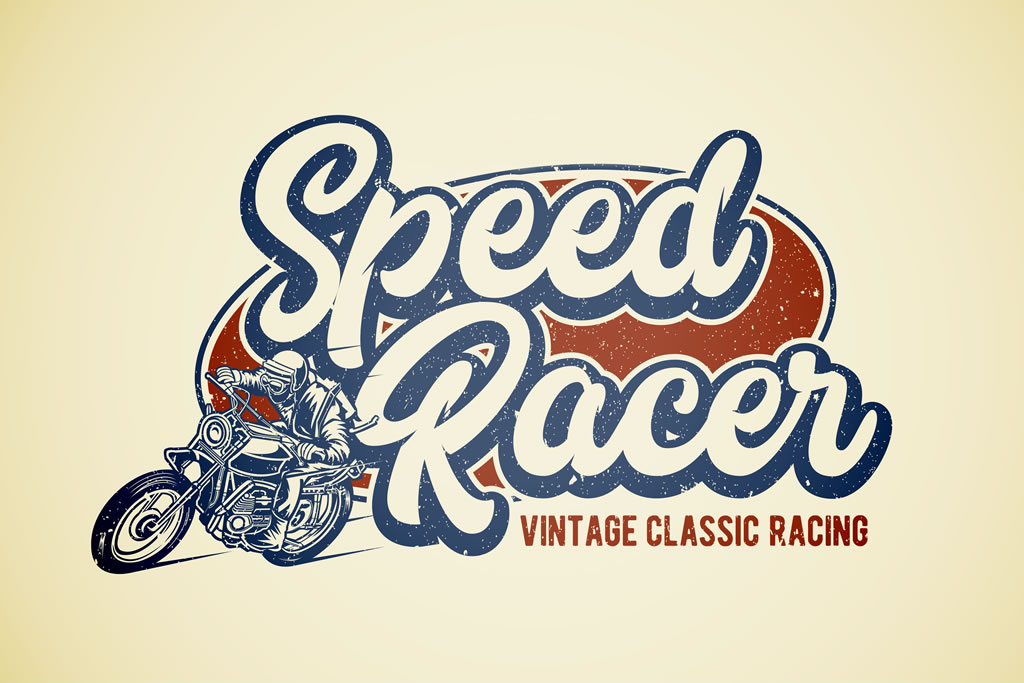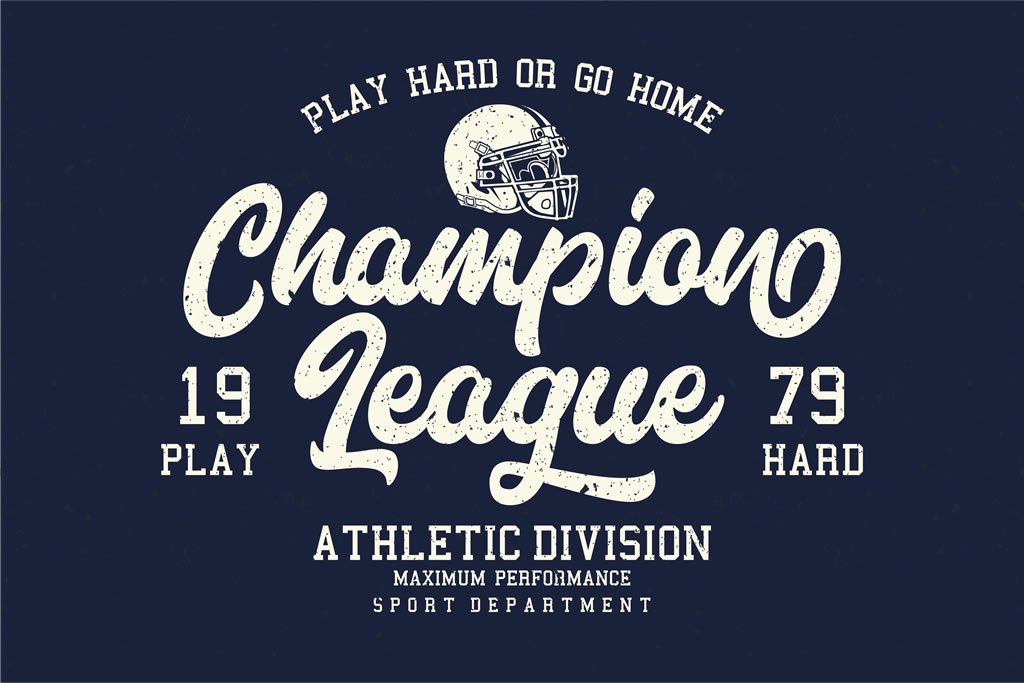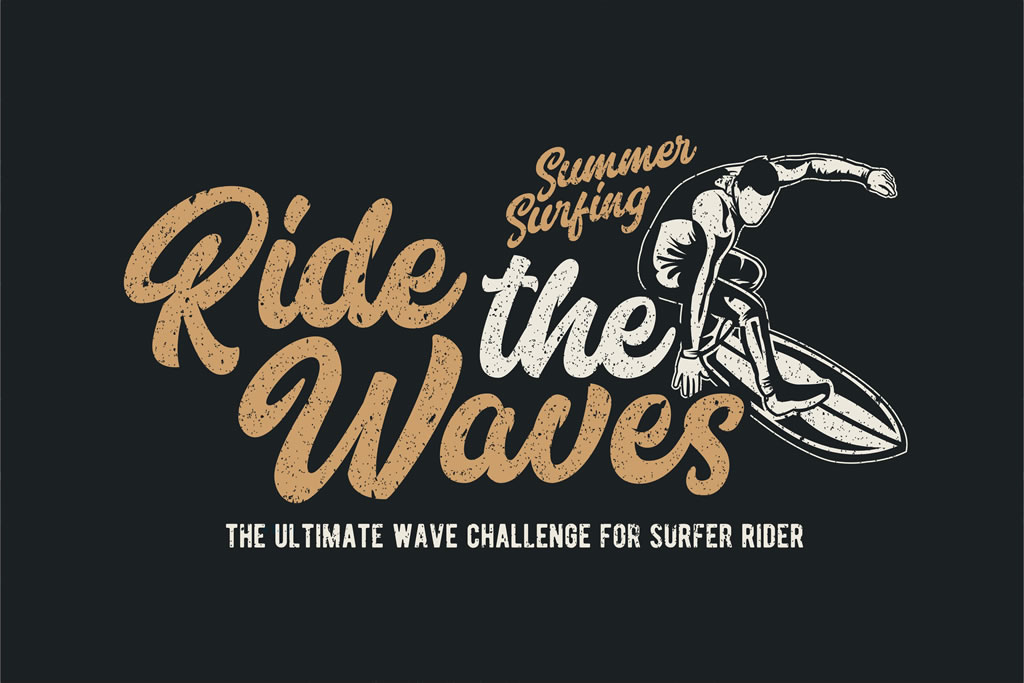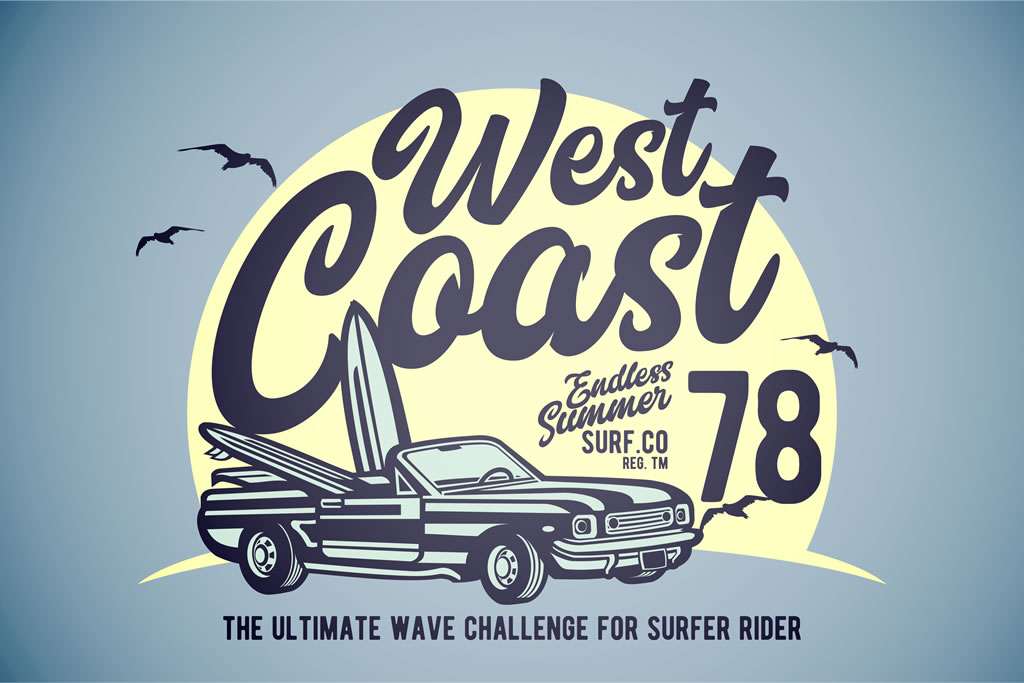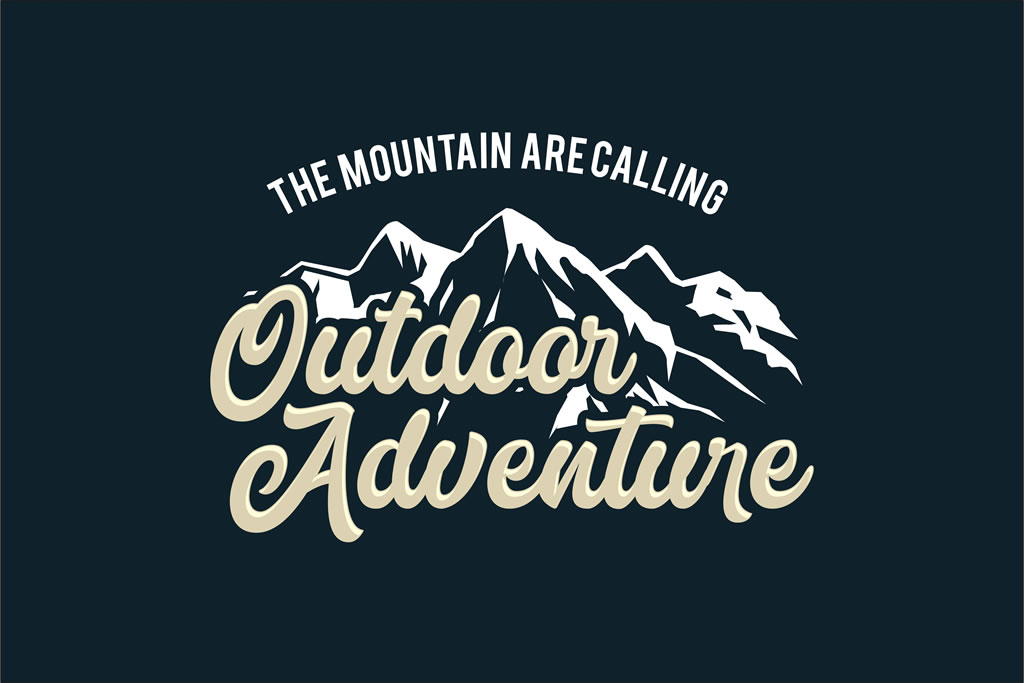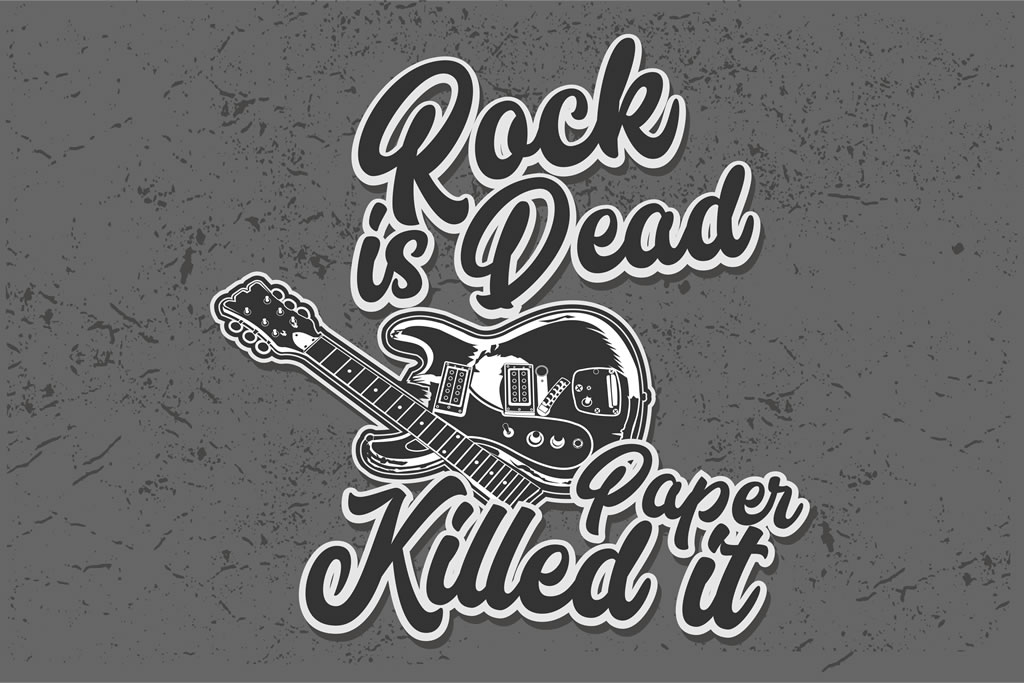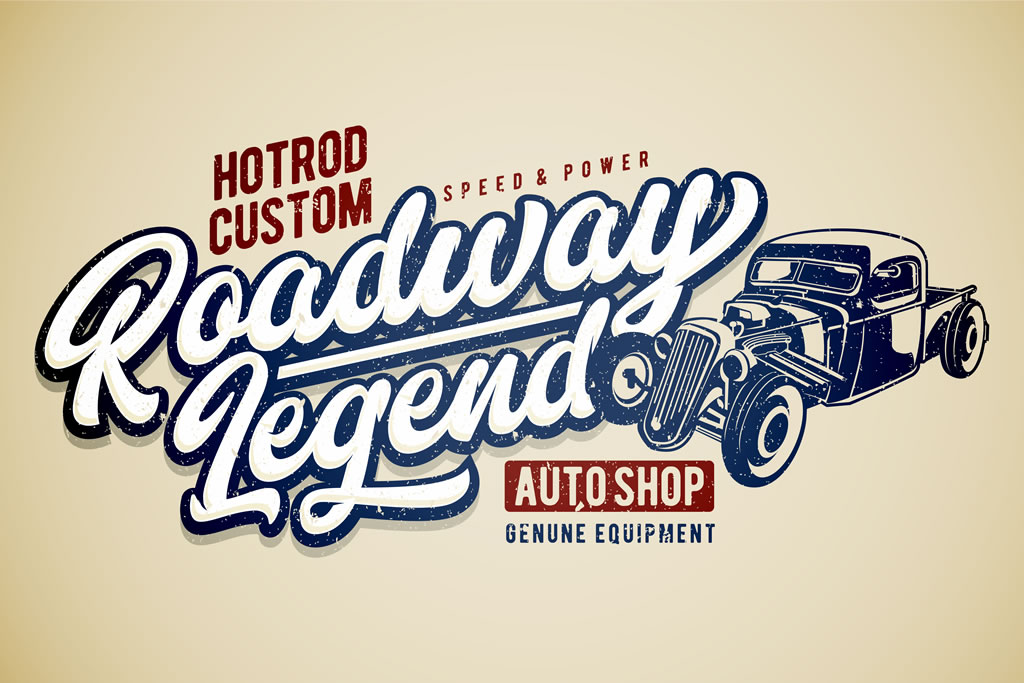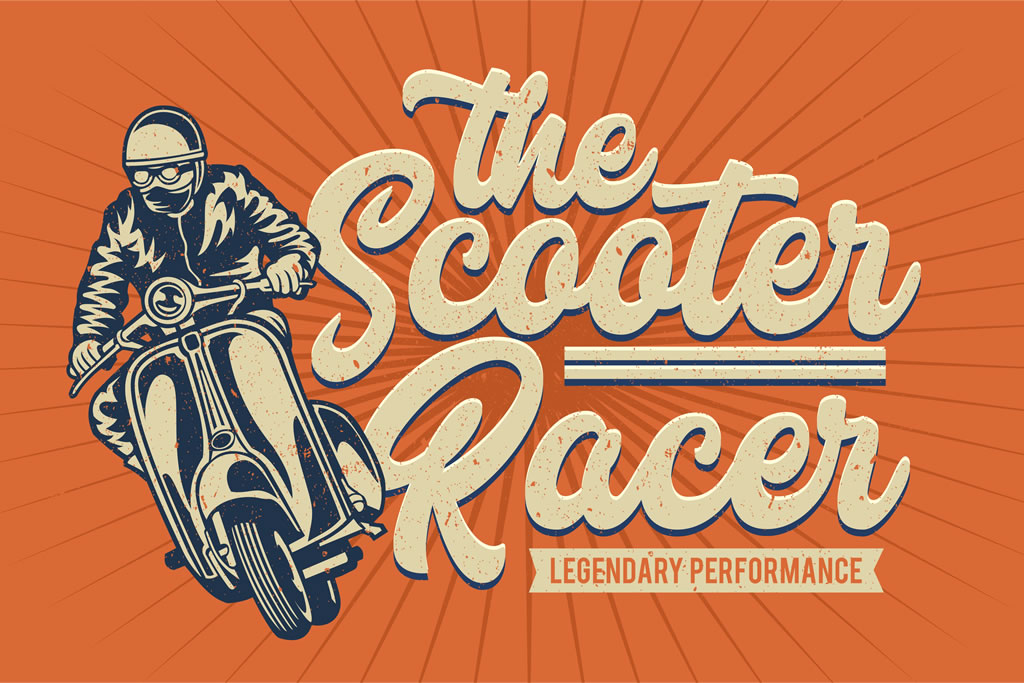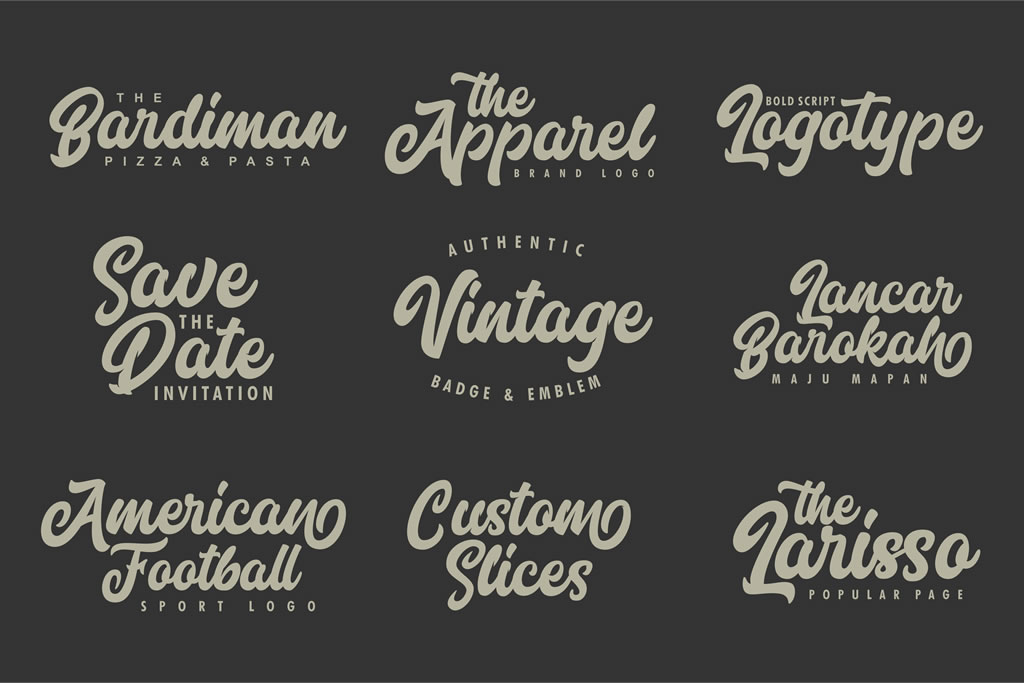
Marttabuck Font
About Marttabuck Font
Marttabuck is a bold, straight-forward script that comes in 2 variations:
Marttabuck Standard
Marttabuck Special
The Marttabuck Special font has unique tiny slices which give a personal touch to the font and makes it feel customized.